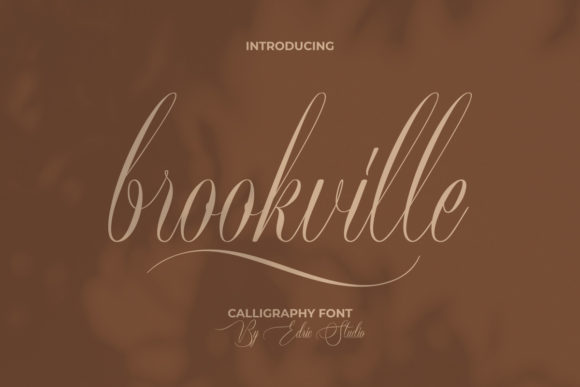
Brookville Font
Brookville is a graceful script font. It will add a luxury spark to any design project that you wish to create! This font is PUA encoded which means you can access all of the amazing glyphs and ligatures with ease!